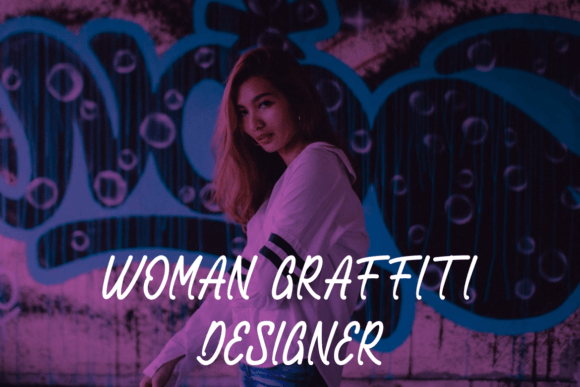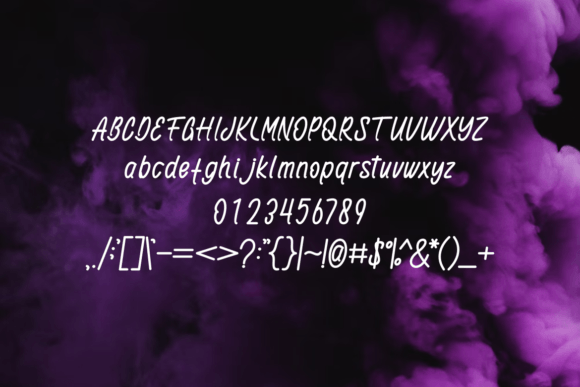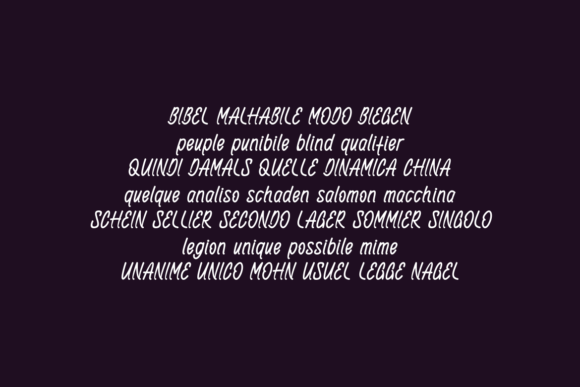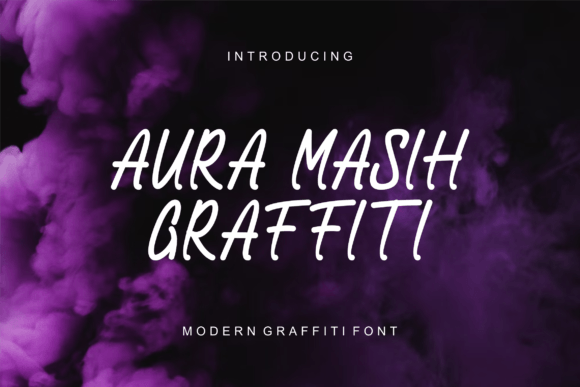
Introduction to Aura Masih Graffiti Font
Aura Masih Graffiti is an exquisite handwritten font, masterfully designed to become a true favorite.
Key Features of Aura Masih Graffiti Font